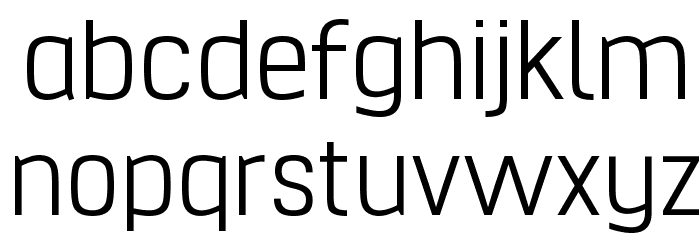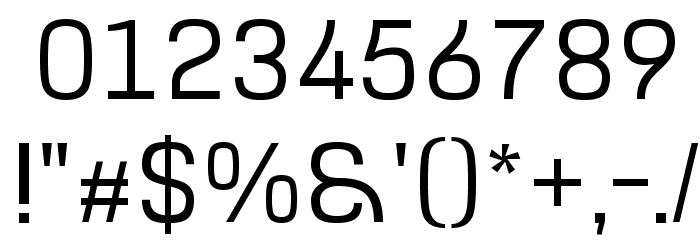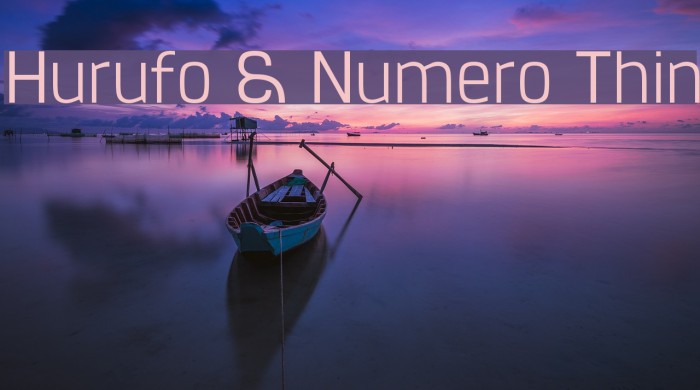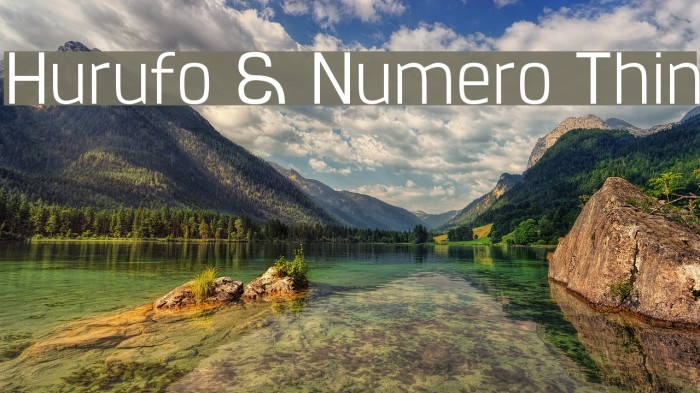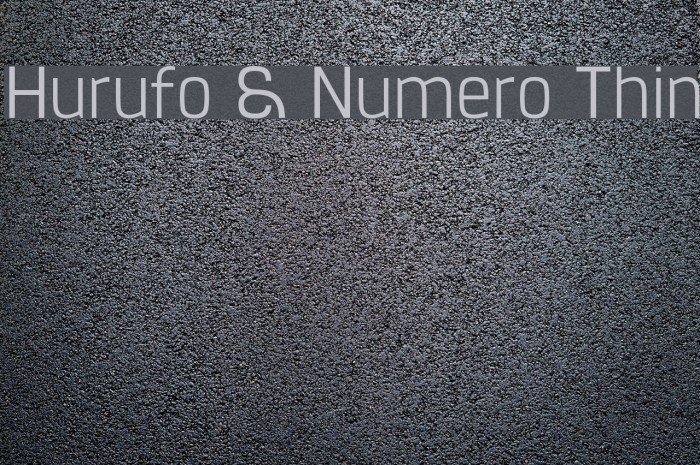
Hurufo & Numero Thin Font
This font exhibits a clean and modern sans-serif style, characterized by its thin, uniform strokes and minimalistic design. The characters are well-proportioned with a consistent height, contributing to a sleek and contemporary appearance. The uppercase and lowercase letters maintain a harmonious balance, while the numerals and special characters are crafted with precision, ensuring readability and versatility. The overall aesthetic is understated yet sophisticated, making it suitable for a variety of design applications.
A modern, thin sans-serif font with clean lines and a minimalist design.
- Proposed Projects: Ideal for digital interfaces, branding, and editorial design where a modern and clean look is desired.